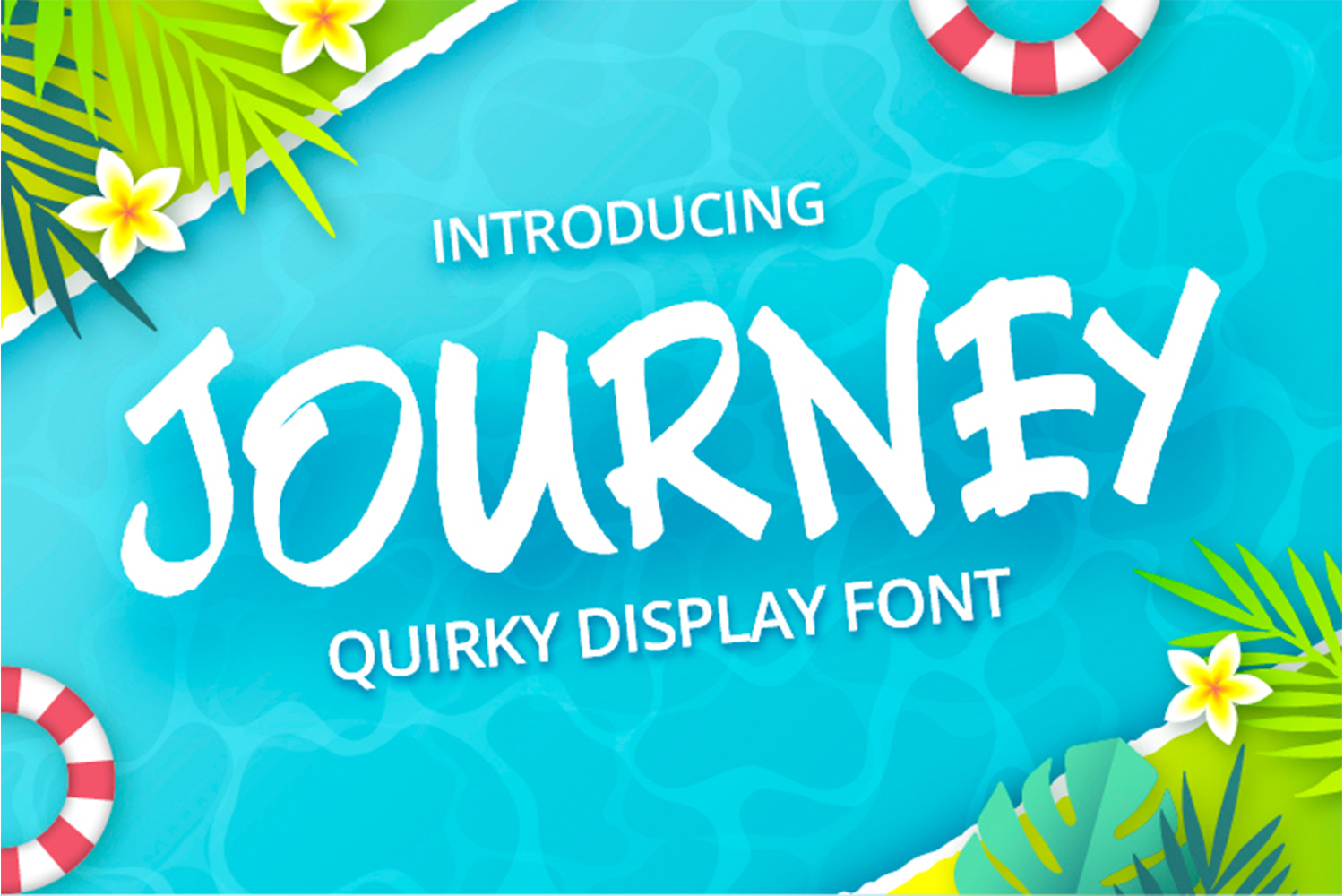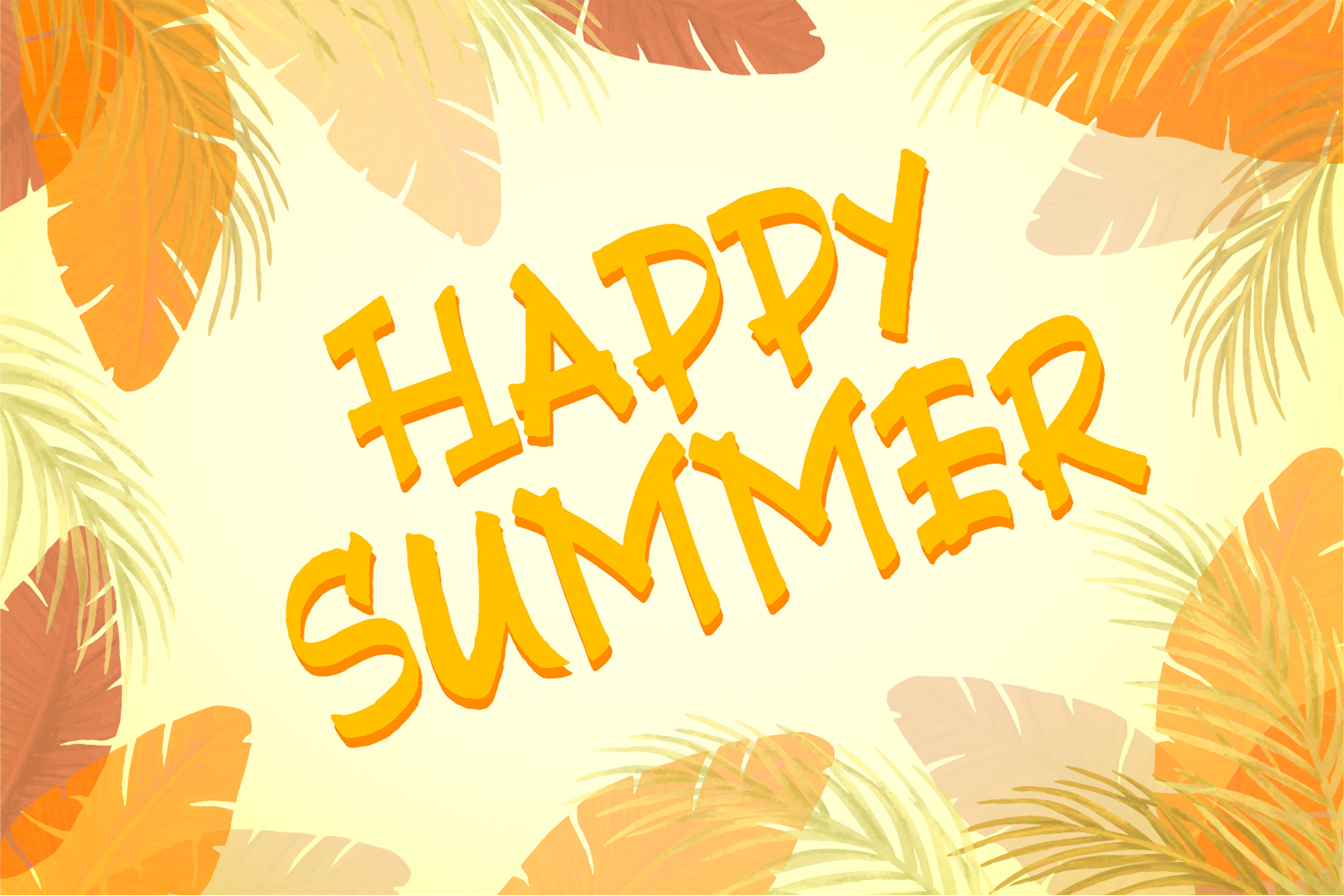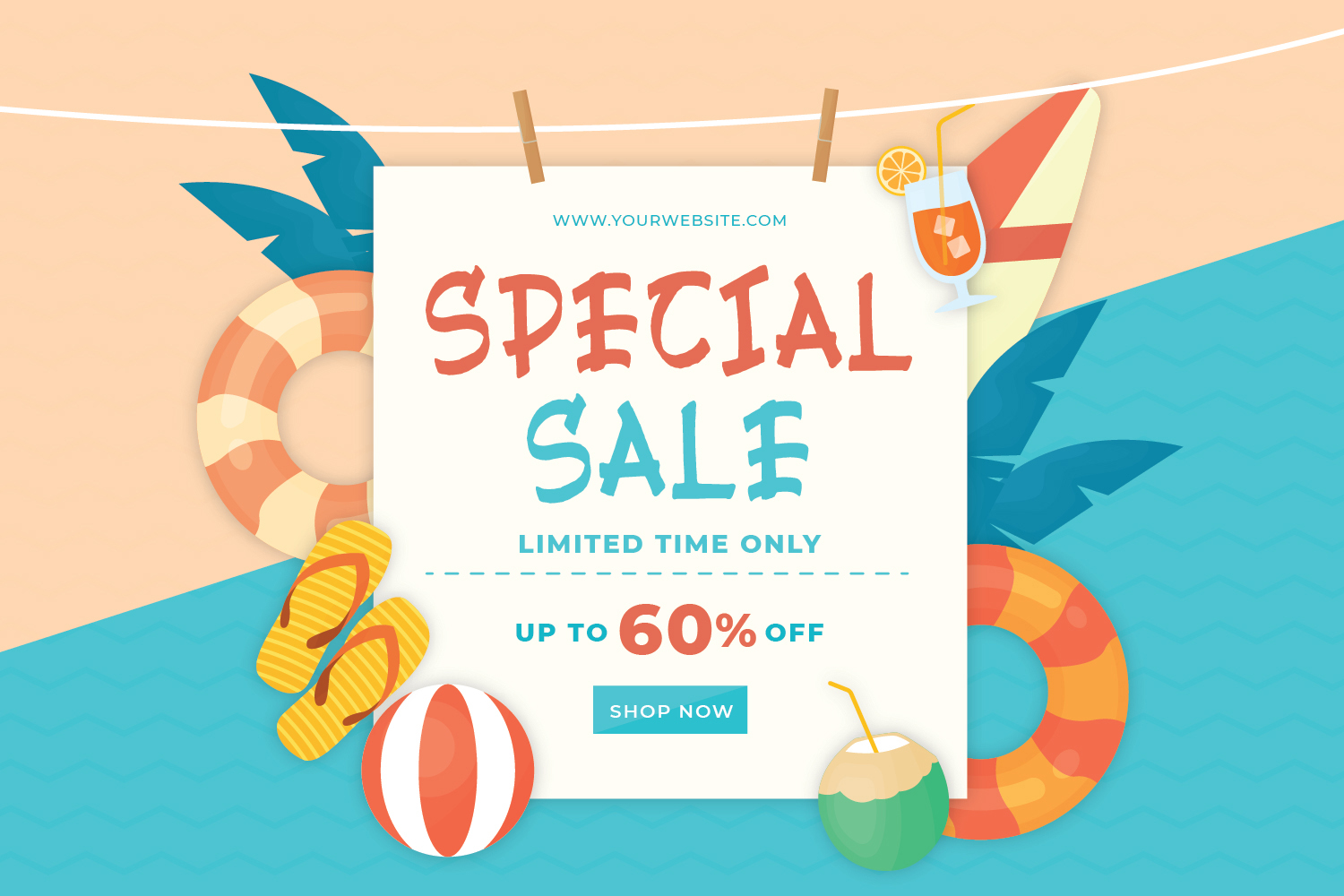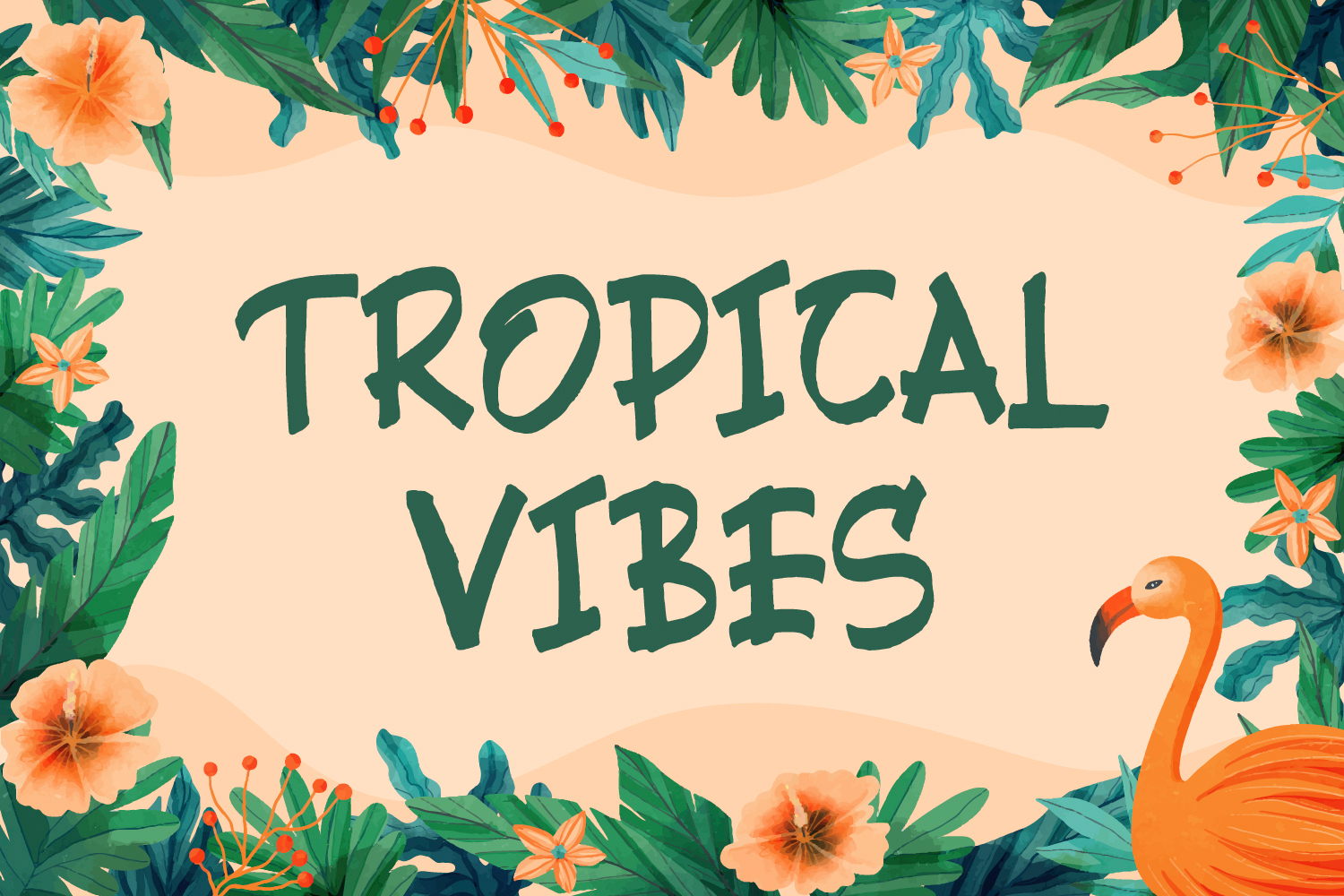
Journey Free Font
Journey Free Font is a quirky display font with authentic and playful feels. It will be perfectly used for Branding, Logo Design, Lettering, Logotype, Clothing, Poster, magazine, packaging, posters, shopping bags, t-shirts, book covers, photography, special events and other design project. This free typeface was designed by a talented Allouse Studio. If you like it don’t forget to check out the full version.